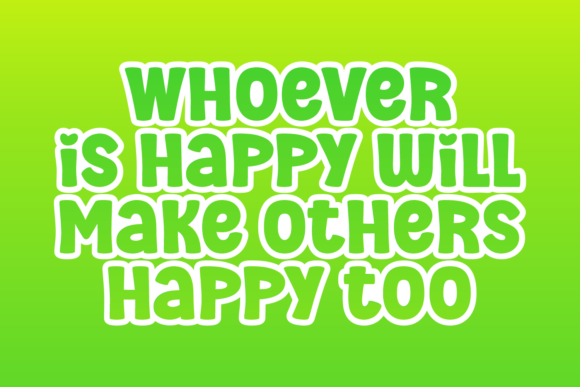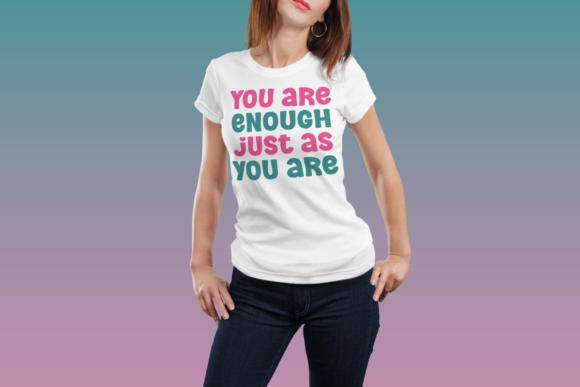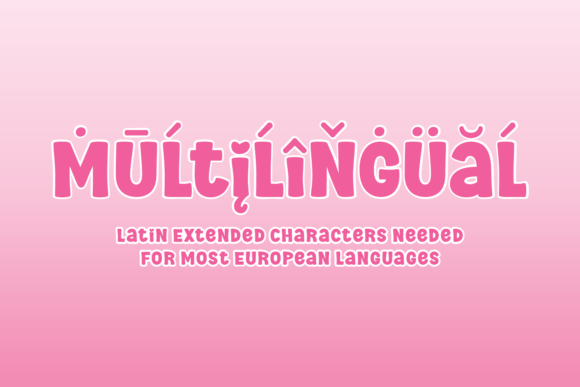
Fresh Juice Font
Fresh Juice is a playful and fun display font. Suitable to a wide variety of designs due to its friendly and cute style, this font has the potential to brighten up each of your creations.